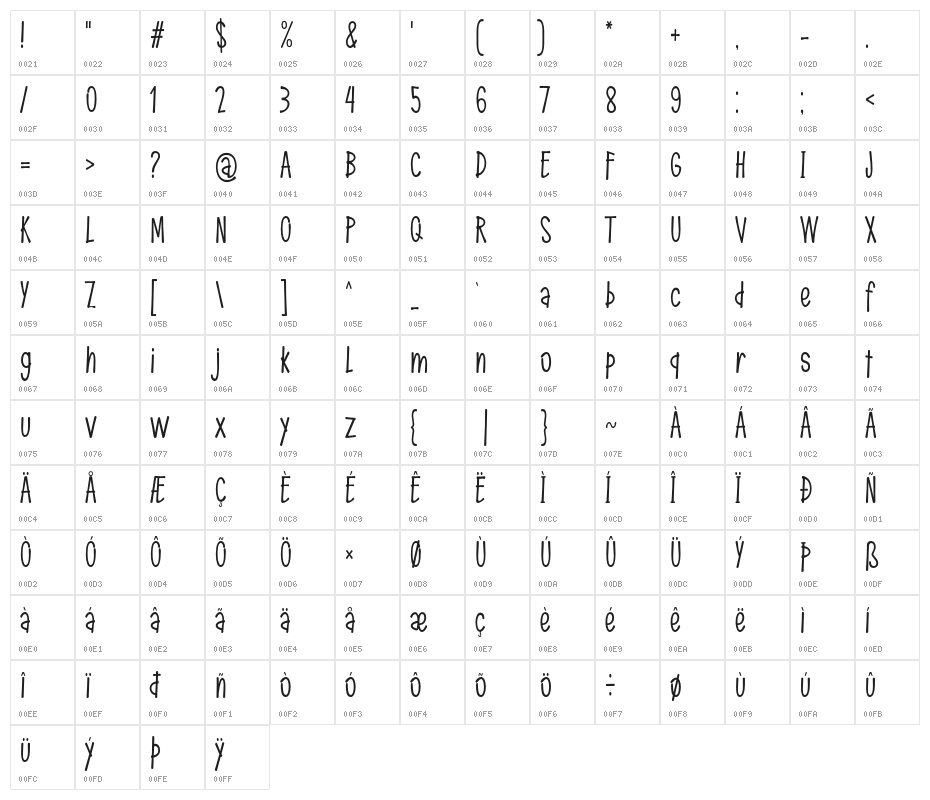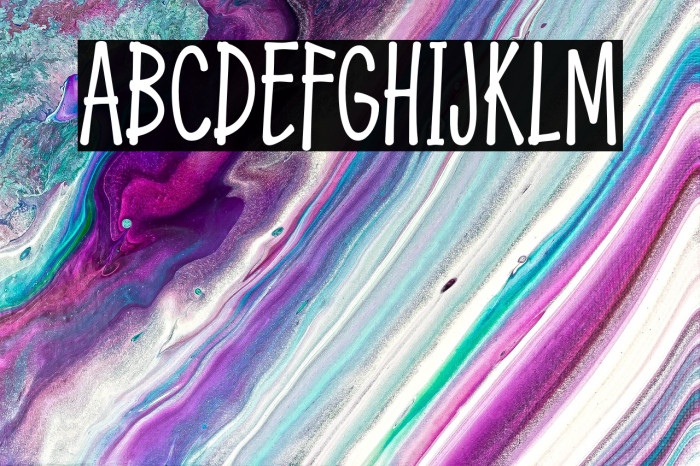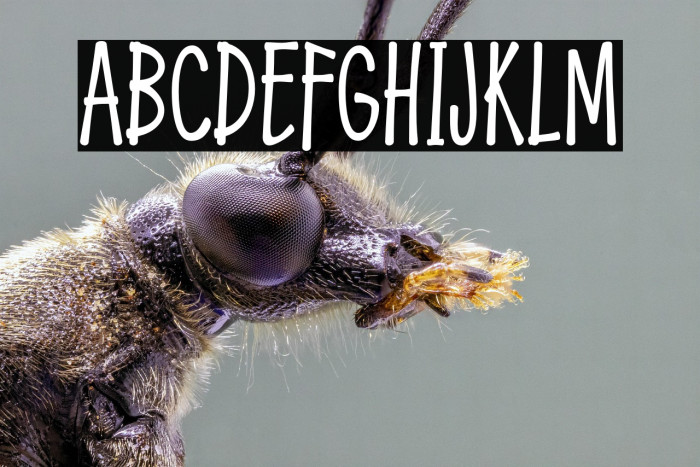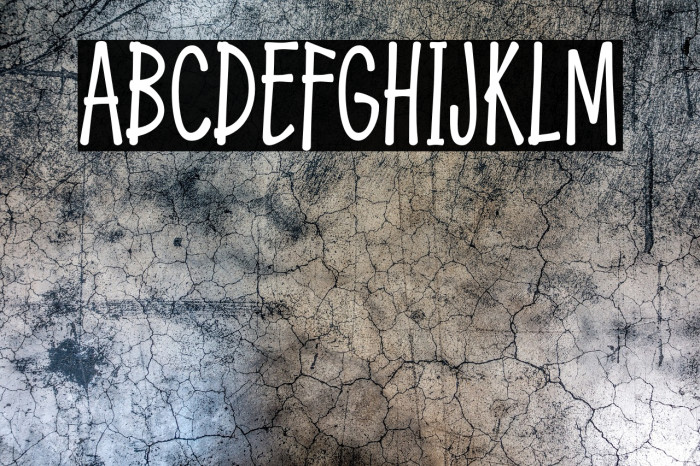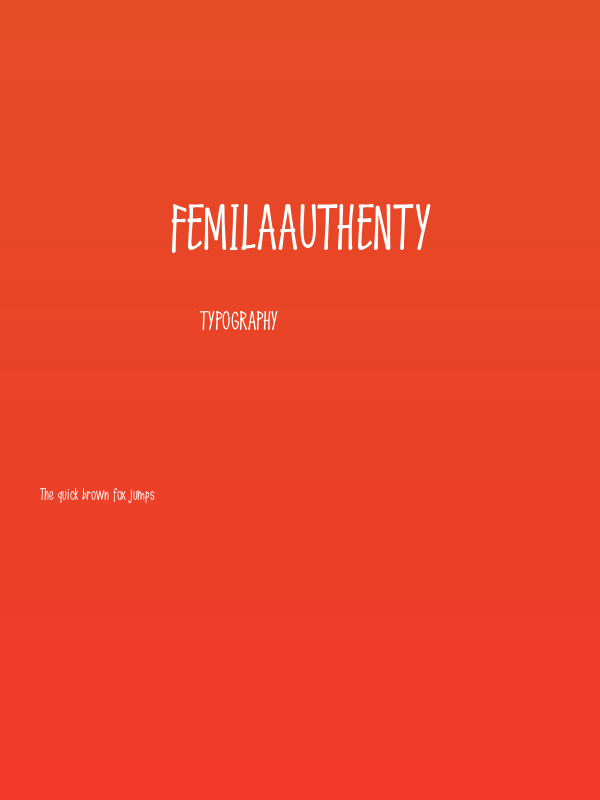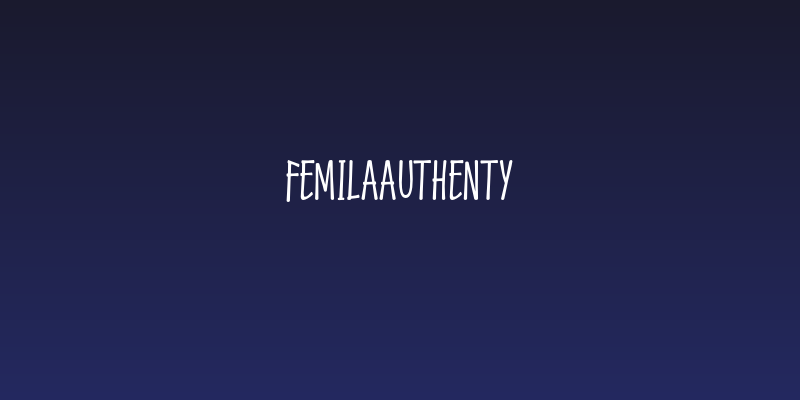
FemilaAuthenty Font
FemilaAuthenty Description
This font features a playful and handwritten style, characterized by its casual and informal appearance. The letters are slightly irregular, adding a personal touch that mimics natural handwriting. The strokes are consistent in width, providing a uniform look across all characters. The uppercase letters are tall and slightly narrow, while the lowercase letters maintain a balanced proportion. The numbers and special characters follow the same playful style, making the font suitable for creative and informal projects. Its legibility and charm make it a versatile choice for various design needs.
| Overall Style | Casual |
| Use Case | Headlines, Logos, Informal text |
| Proposed Projects | Ideal for greeting cards, invitations, children's books, and playful branding projects. |